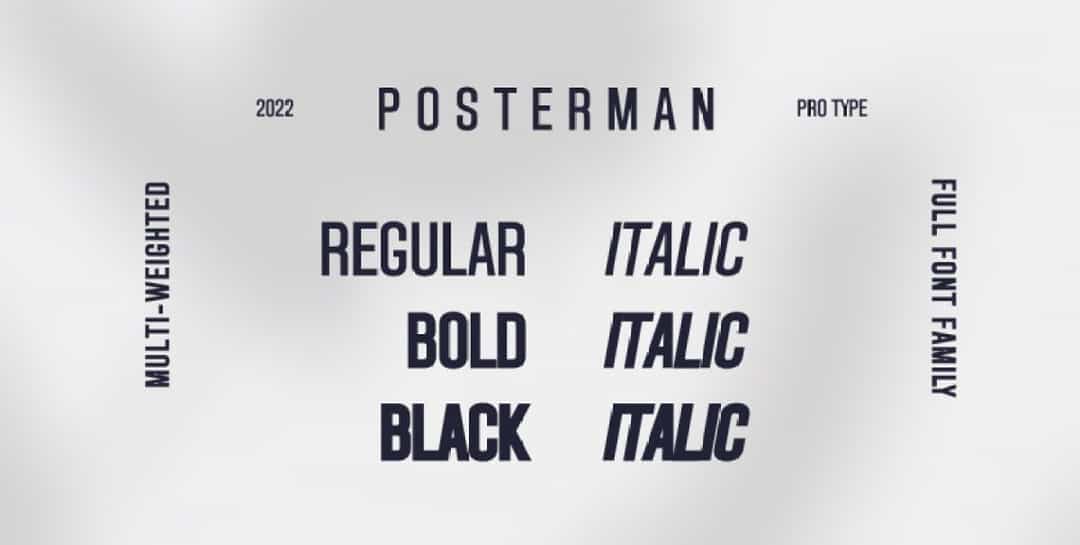
Posterman is an eye-catching sans serif font designed to make an impressionful headline or clean logotype statement. Boasting tall letterforms and an appealingly grotesque appearance, this legible font makes an impressive first impression when applied in any setting – be it headline writing or logotype creation.